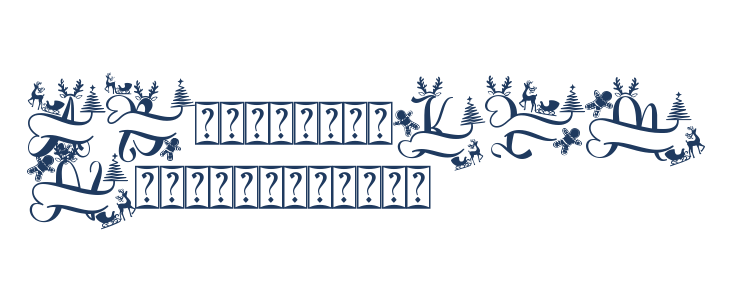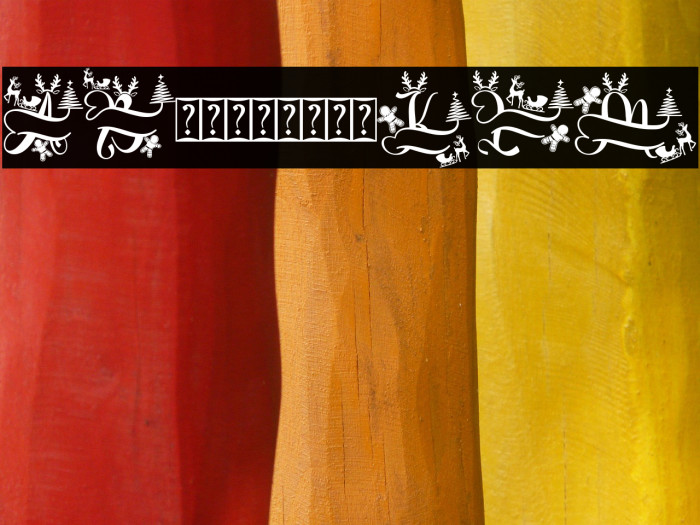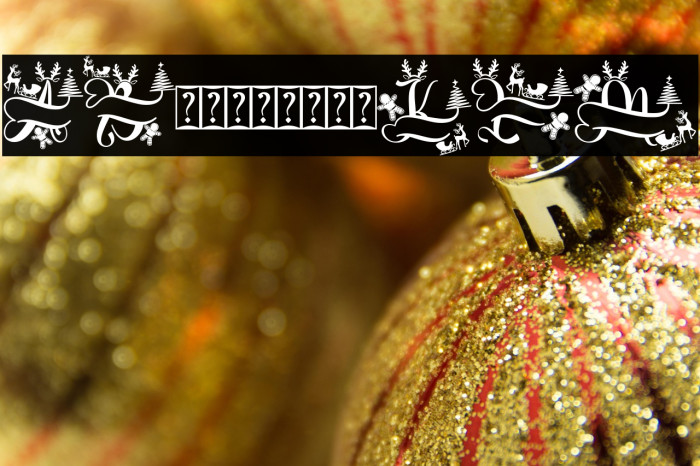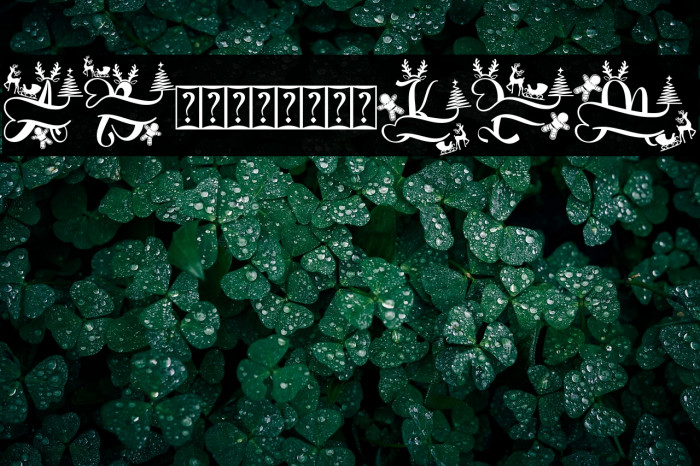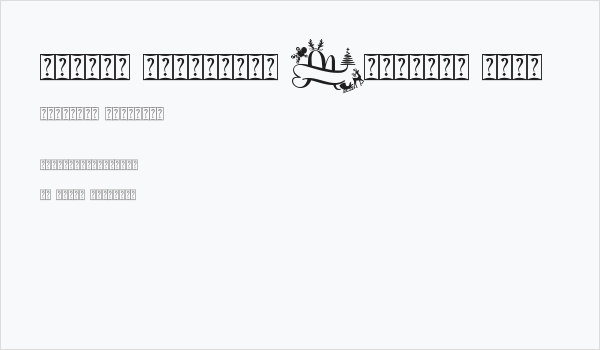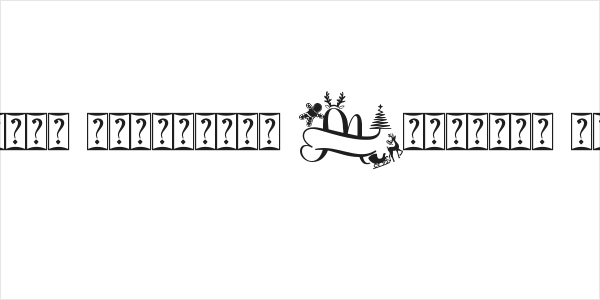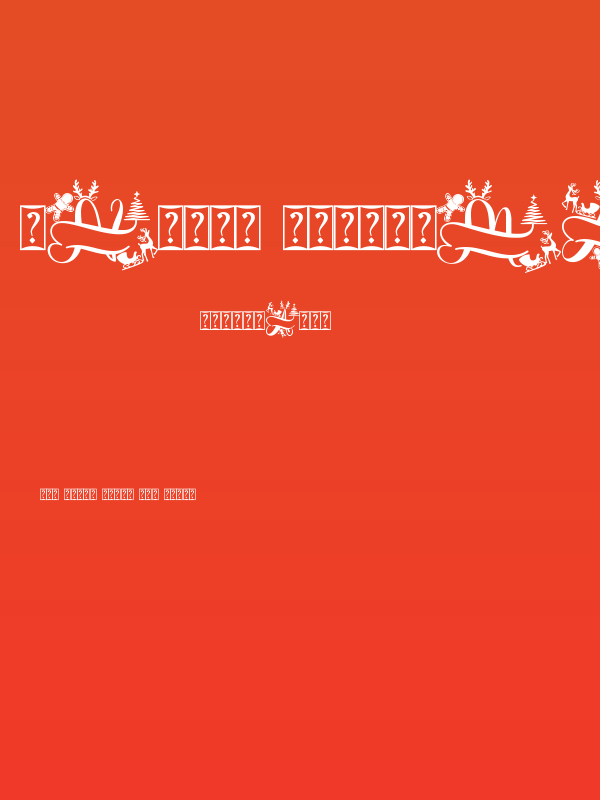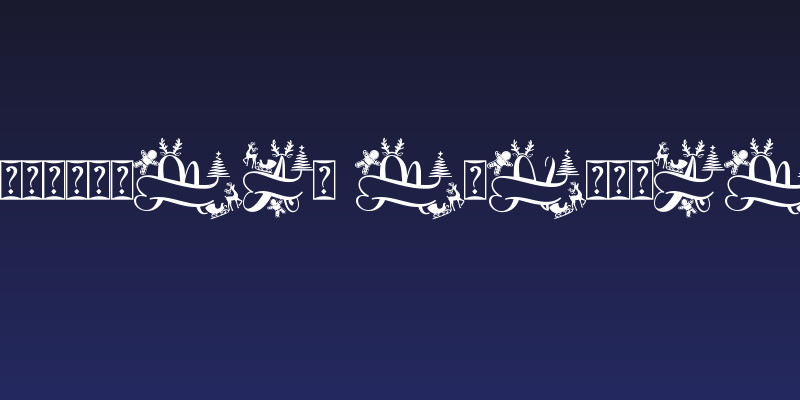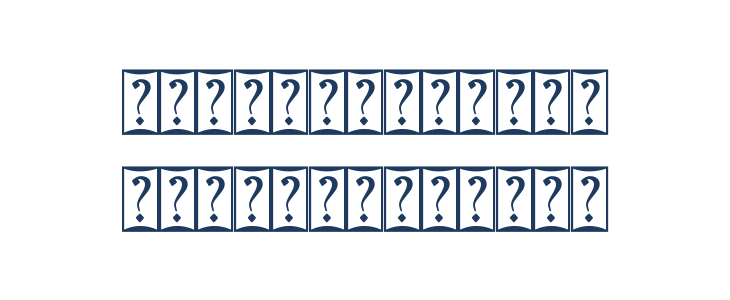
Unique Christmas Monogram Demo Font
Unique Christmas Monogram Demo Description
A decorative display font featuring monogram-style letters with festive Christmas elements such as reindeer, sleighs, trees, and snowflakes integrated into the letterforms. Each character is framed and highly ornamental, evoking a holiday theme.
| Overall Style | Decorative, Festive, Thematic |
| Use Case | Logos, Headlines, Invitations, Greeting cards |
| Proposed Projects | Holiday cards, Christmas invitations, festive branding, seasonal packaging, event posters. |